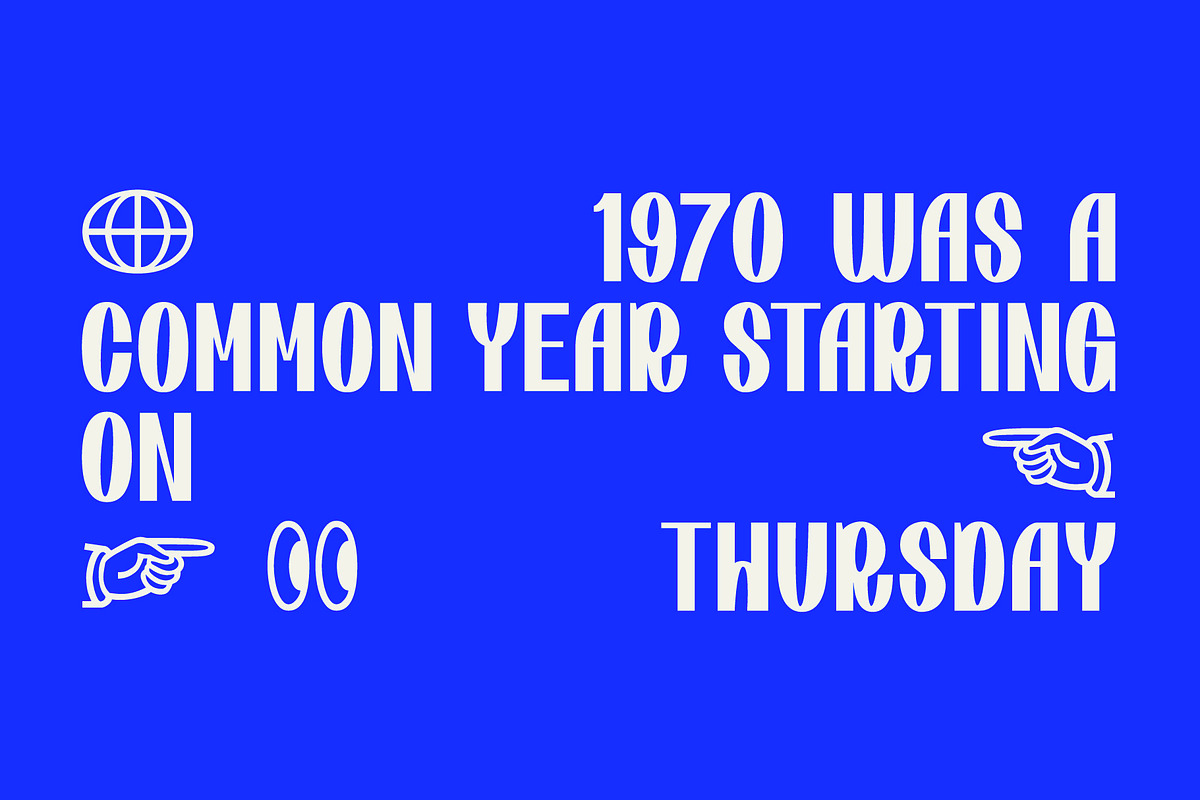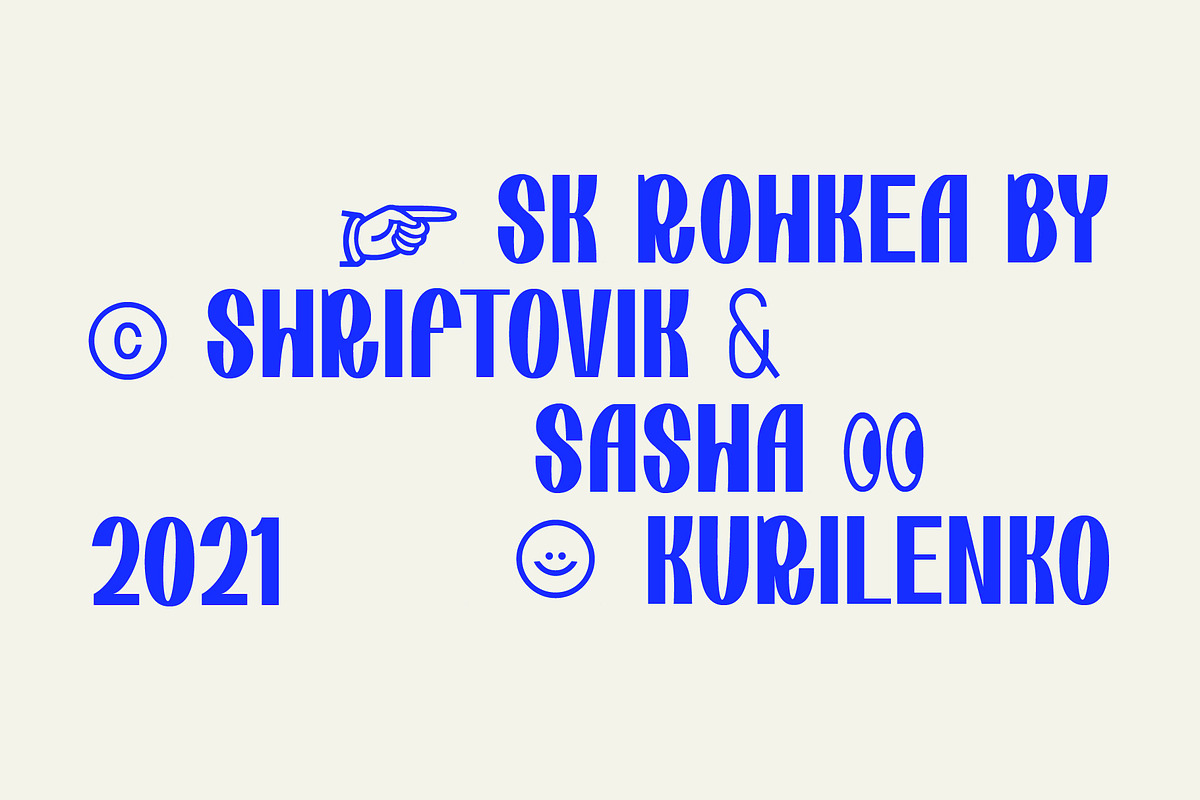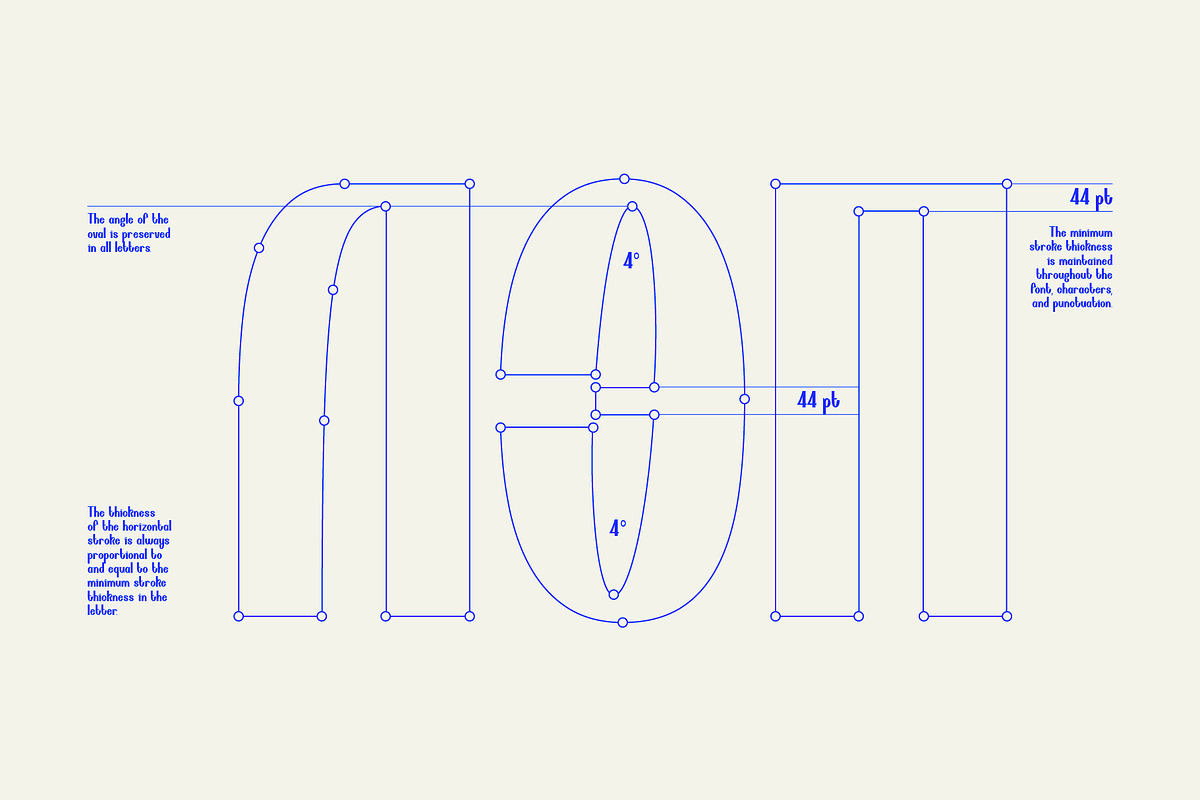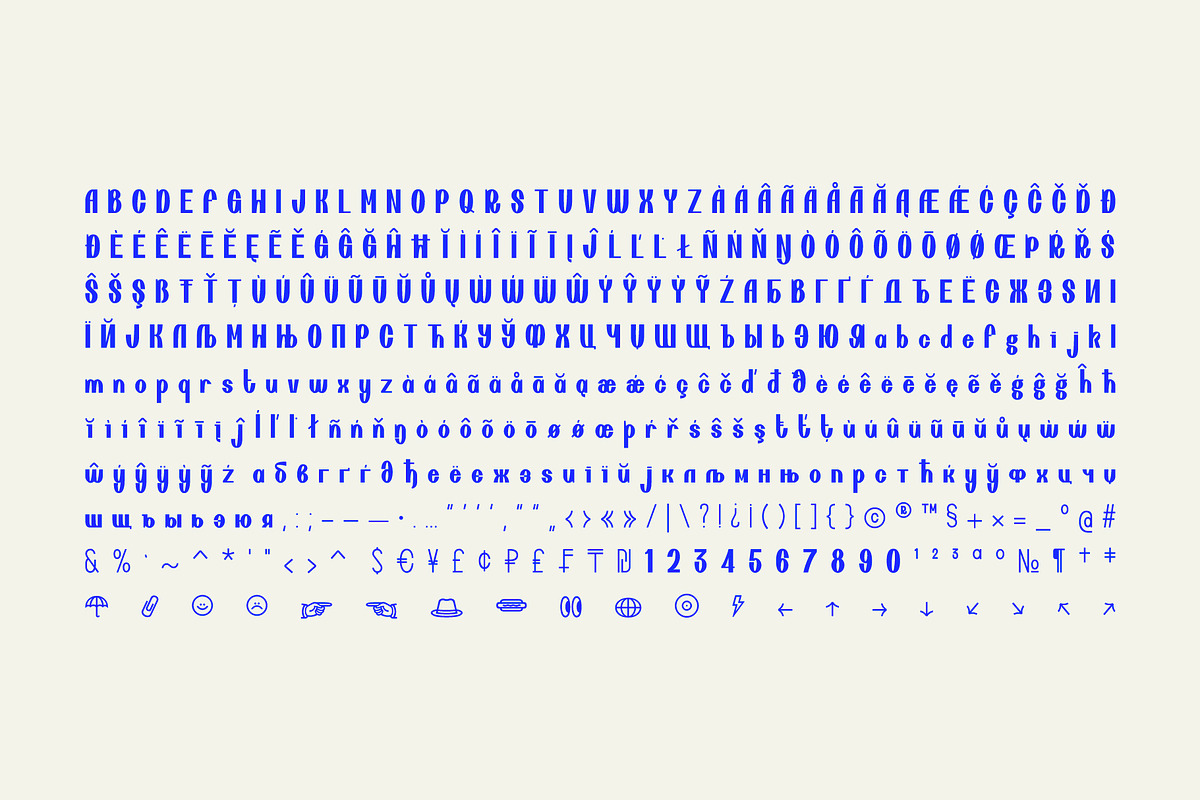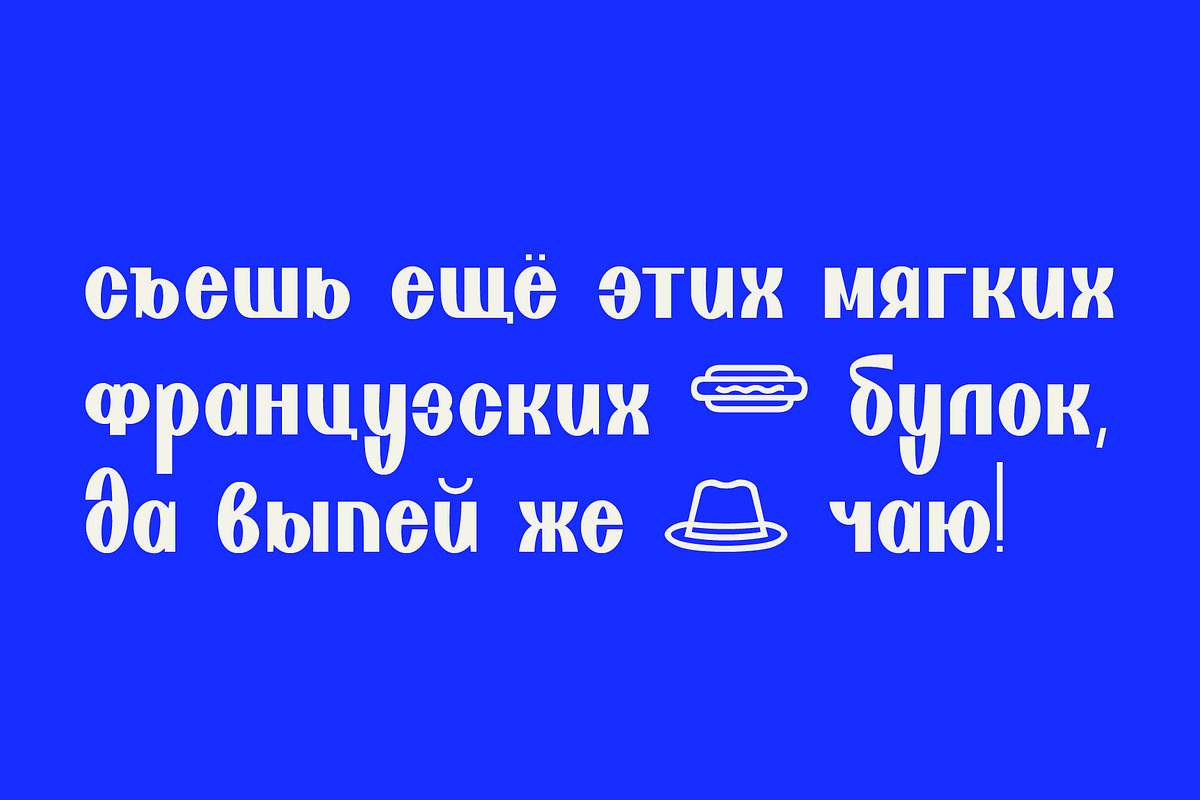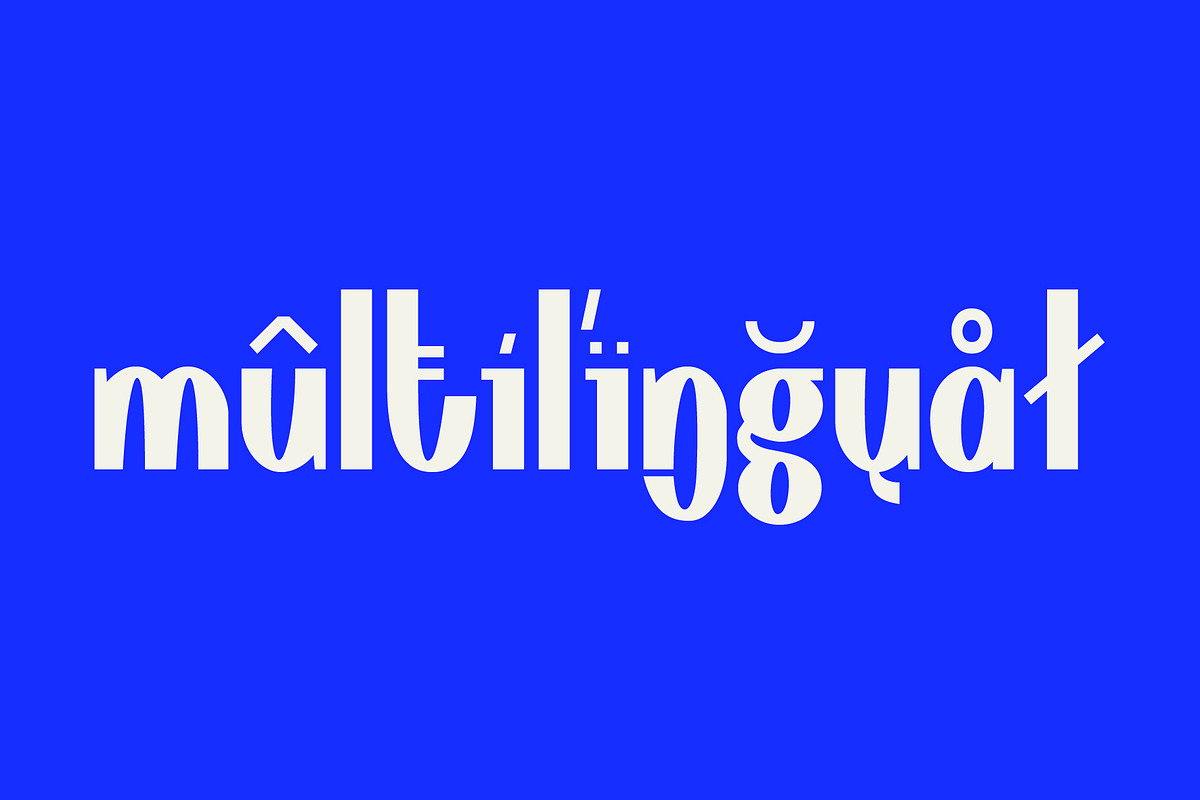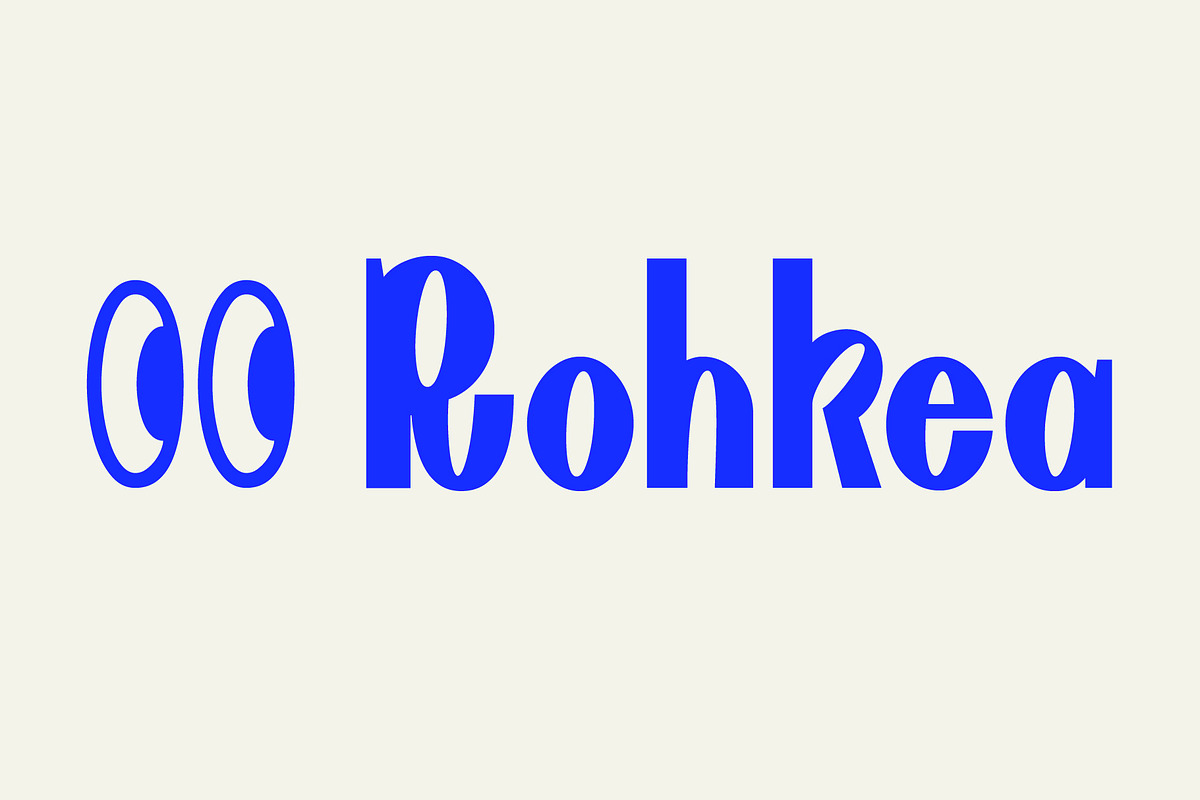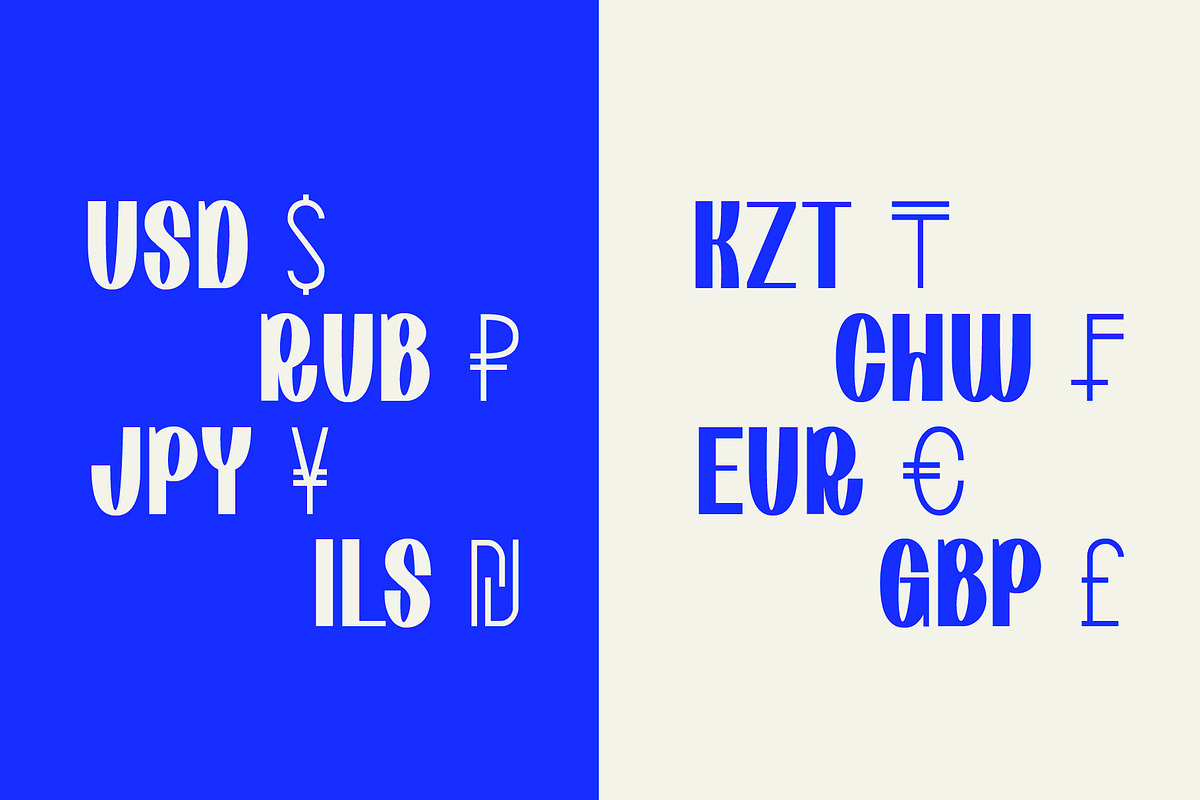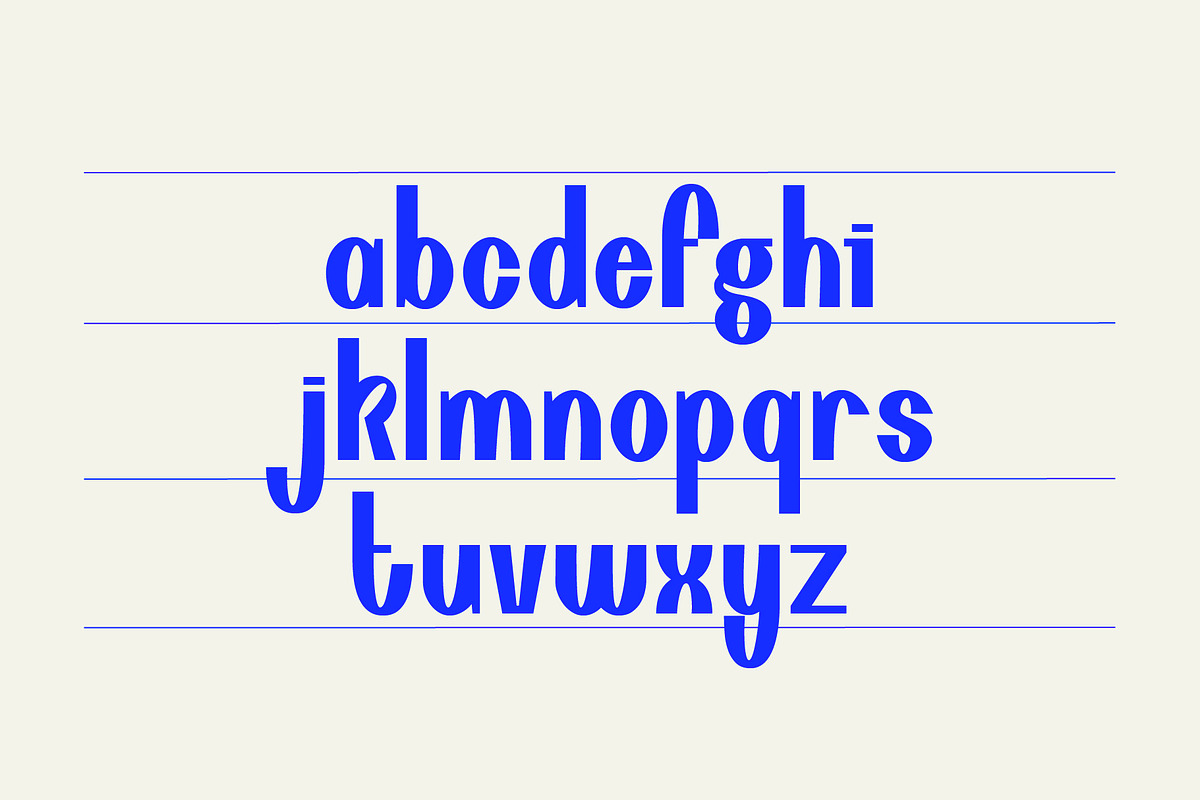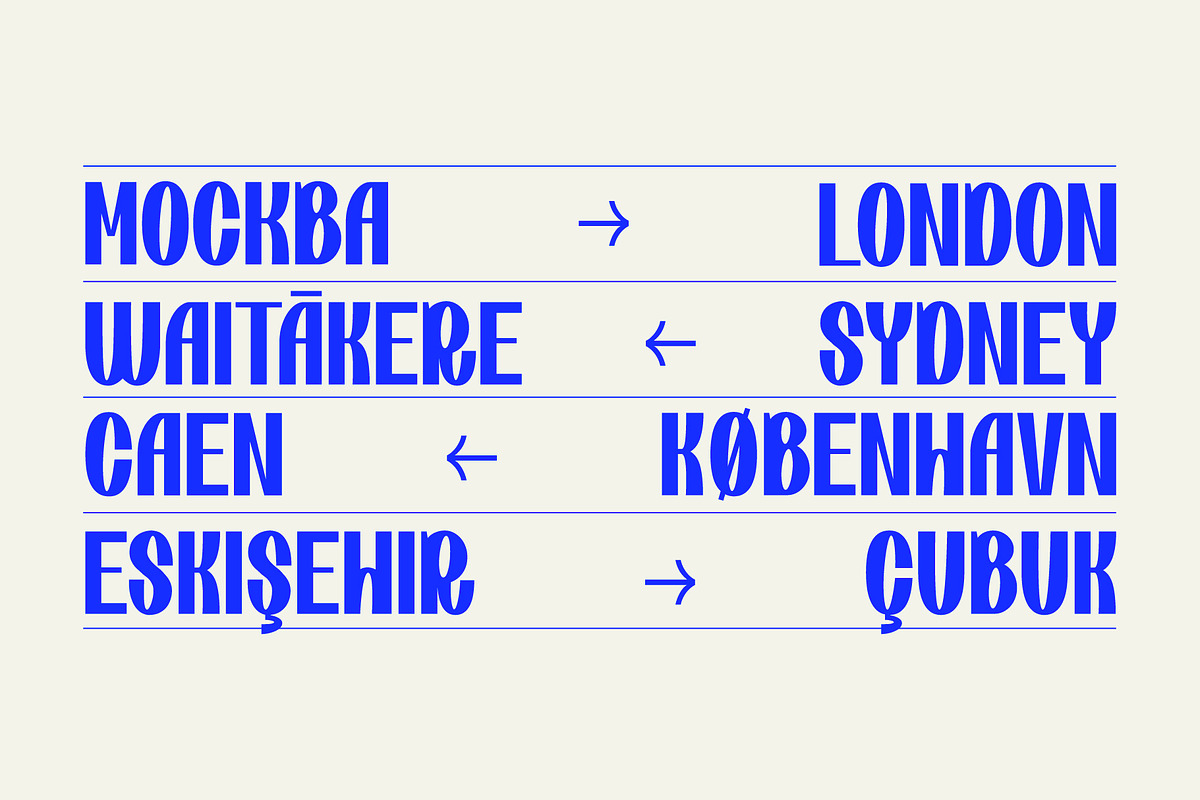
SK Rohkea — Modular Display Grotesk
SK Rohkea is a modular display typeface that combines strict geometry and smoothness of lines. The main features of the typeface are the constant inclination of the oval and the elongation of forms. They give the typeface a unique character, especially when it is used in large inscriptions and headings. The SK Rohkea typeface has capital and lowercase letters that support the extended Latin and Cyrillic set and even icons! Thanks to the combination of modernity and refinement, the typeface is great for the widest range of design tasks, no matter whether it is printing or web design.